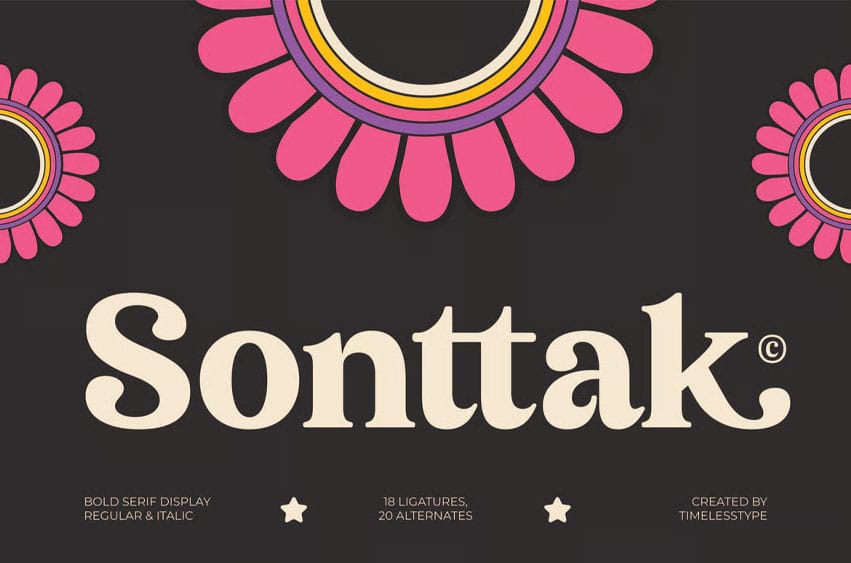
Sonttak Font is a bold retro serif display font with soft curves, thick letterforms, and a warm vintage personality. Inspired by groovy 70s typography and playful flower-power design, this typeface is perfect for posters, lifestyle branding, packaging, social media graphics, retro merchandise, and eye-catching headlines. Its friendly shapes and nostalgic charm bring a joyful, approachable vibe to any creative project.
Featuring 18 ligatures and 20 alternates, Sonttak gives designers versatile tools to craft expressive titles, decorative compositions, fun logotypes, and stylish retro layouts. With its smooth curves, bold presence, and cheerful attitude, this font is ideal for projects that want a mix of modern playfulness and vintage flair.